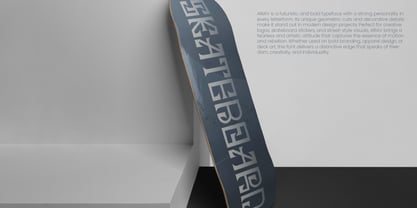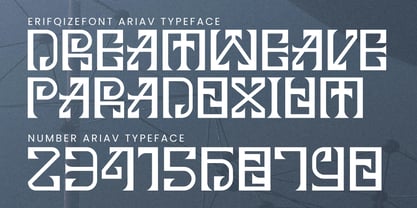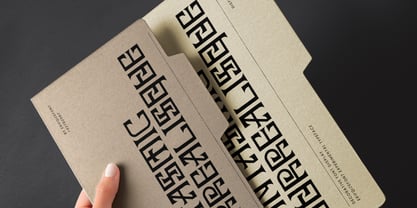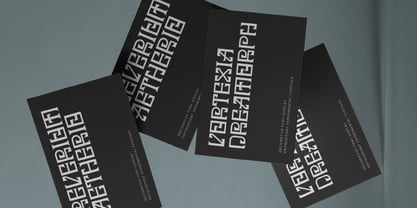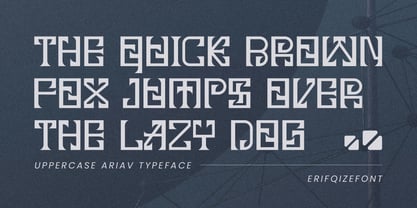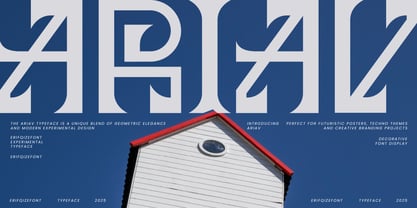
Ariav
by Erifqizefont
The Ariav Font Family was designed by Eka Rifqi Setiawan and published by Erifqizefont. Ariav contains 1 styles. More about this family
Ariav is a decorative experimental typeface that seamlessly blends geometric precision with bold, futuristic aesthetics. Its unique letterforms showcase sharp angles, balanced symmetry, and creative structural cuts, making it ideal for designers in search of a modern and avant-garde appearance. This typeface excels in applications such as logos, techno posters, sci-fi titles, branding, and skateboard sticker designs, providing every layout with a distinctive and striking identity. With robust multilingual support, Ariav broadens your creative possibilities for global projects. It embodies the essence of experimental design — clean, daring, and visionary.
Designers: Eka Rifqi Setiawan
Foundry: Erifqizefont
Introducing Erifqizefont, a Foundry led by Eka Rifqi Setiawan. Originating from Eka's experience as an Icon Designer, Erifqizefont specializes in bold, symmetrical Display Fonts with futuristic elements, occasionally exploring retro and whimsical styles. Based in Indonesia, Erifqizefont integrates the nation's cultural heritage into its designs. As a sole proprietor, Eka focuses on crafting superior, unique fonts, setting Erifqizefont apart in the industry.